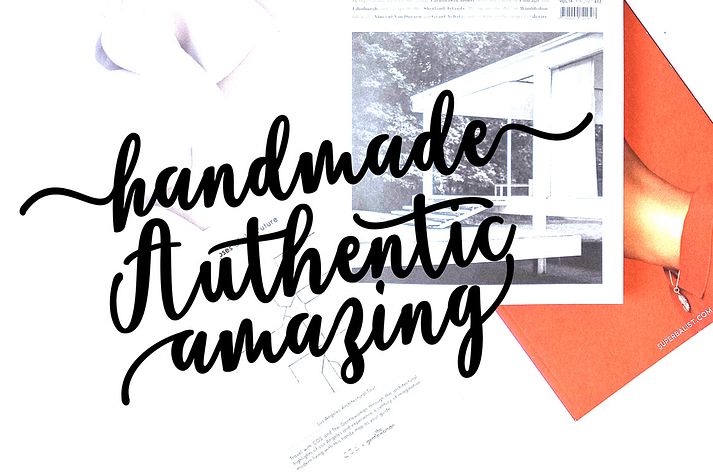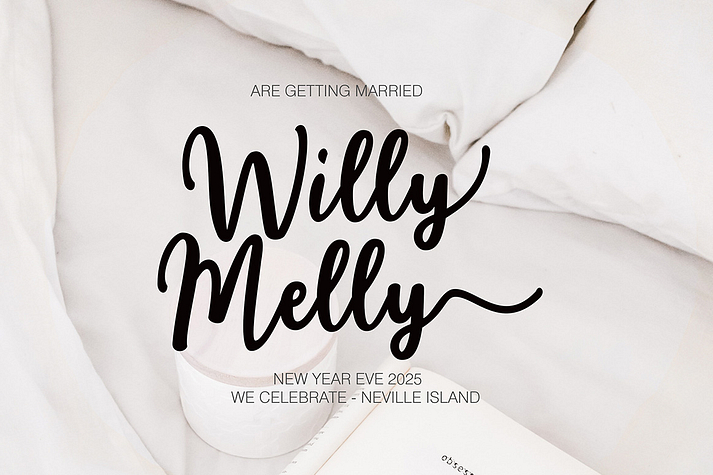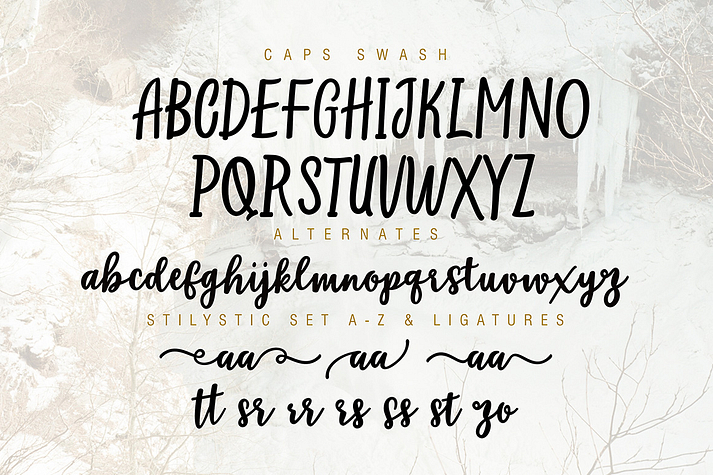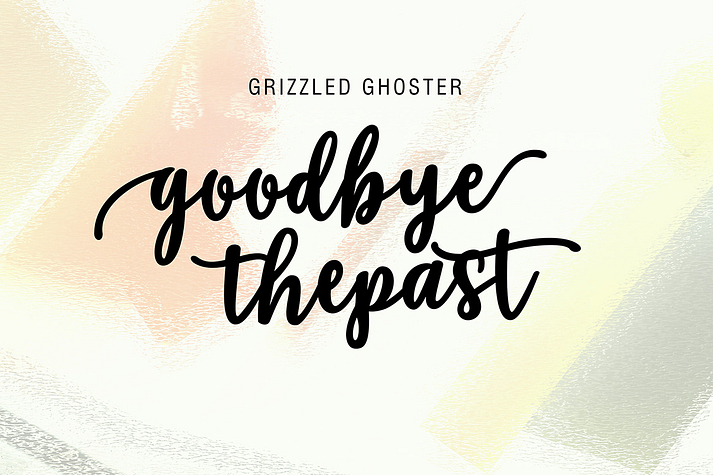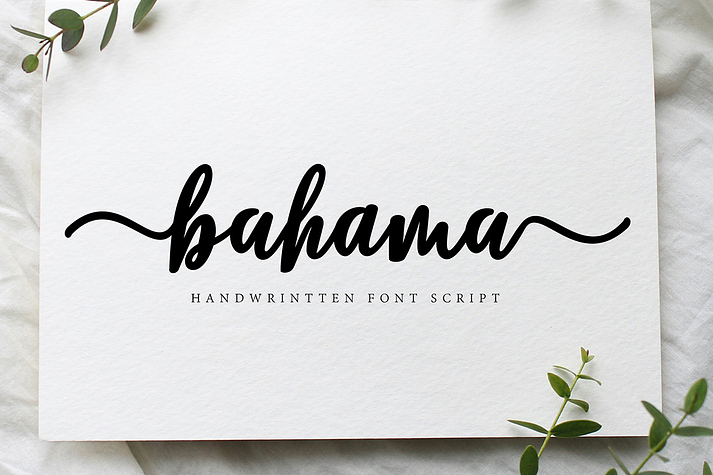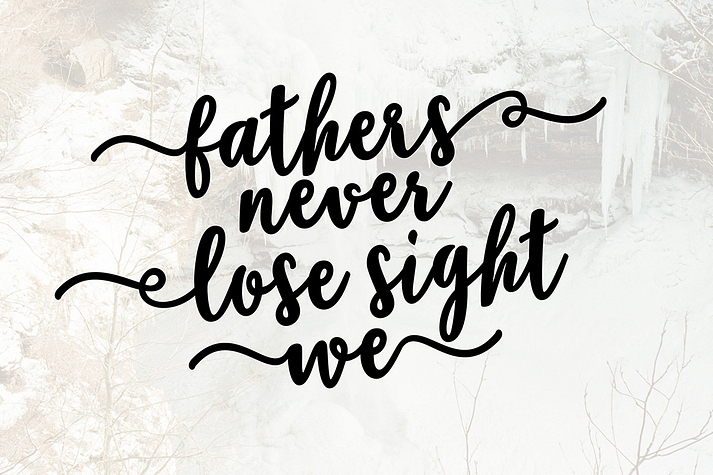
Bahama Script is a script and modern calligraphy font published by Fontasticlab.
Bahama Script font style comes with an amazing character. Ideal for a logo, a name tag, handwritten quotations, product packaging, goods, social media and greeting cards. It contains a complete set of lower and upper case letters, assorted punctuation, numbers, and support multi-language. You also have easy to access these fonts because I’ve given PUA Unicode (font specific code), with tons of character alternatives. This package can be accessed in full by a craftsman or designer.